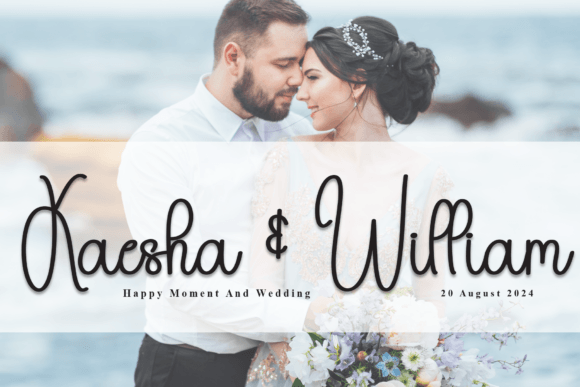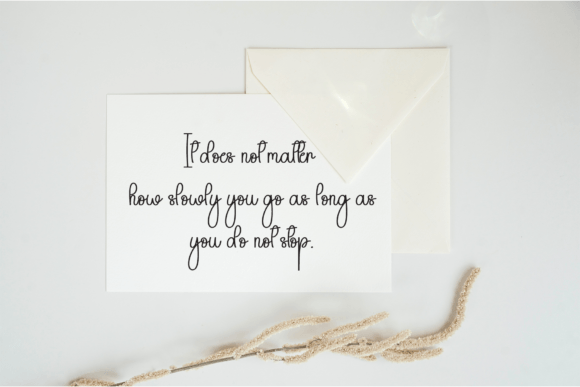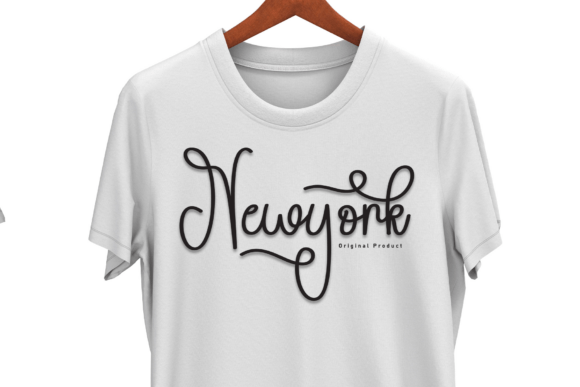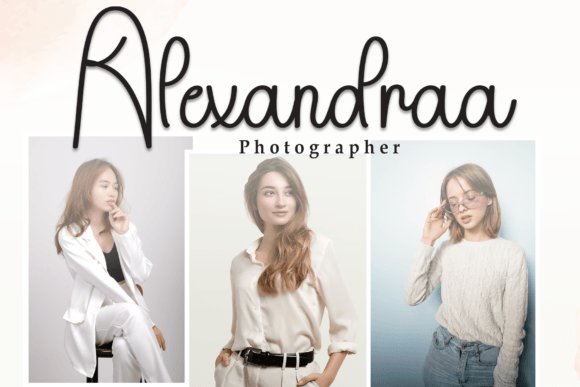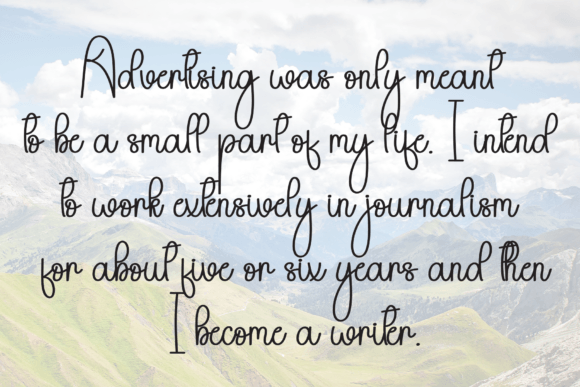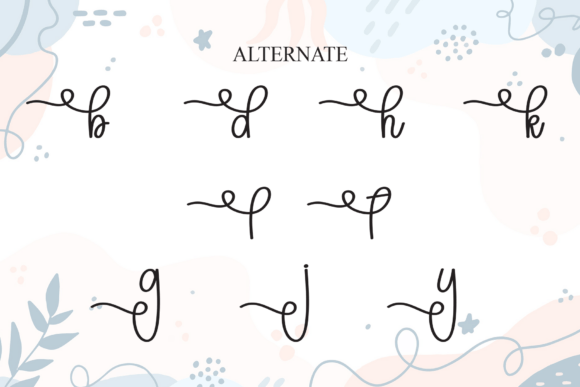
Introducing Background Font: Adding a Dash of Fun to Your Designs
Are you tired of using the same old fonts in your designs? Do you want to add a touch of whimsy and fun to your creations? Look no further than Background Font, a sweet and friendly charm of a handwritten display font. Specifically designed to infuse your designs with a dash of fun, this delightful font is perfect for wedding invitations, greeting cards, or any design project that embraces the joy of playfulness.
The Power of Whimsy in Design
Whimsy is a design element that can make or break a project. It’s the spark that sets your design apart from the rest, making it memorable and engaging. With Background Font, you can add a light-hearted vibe to your designs, painting every word with memorable delight. Whether you’re a designer, crafter, or DIY enthusiast, this font is sure to become your go-to choice for adding a touch of fun to your projects.
What Makes Background Font Special?
So, what makes Background Font so special? Here are just a few features that set it apart:
- Handwritten charm: Background Font is a handwritten display font, giving it a personal and friendly feel that’s perfect for designs that need a touch of warmth.
- Light-hearted vibe: This font has a playful, carefree vibe that’s sure to bring a smile to your face. It’s perfect for designs that need a dash of fun and whimsy.
- Memorable delight: With its unique and charming lettering, Background Font is sure to make your designs memorable and engaging.
- Versatile: This font is perfect for a wide range of design projects, from wedding invitations and greeting cards to posters, flyers, and more.
Using Background Font in Your Designs
Using Background Font in your designs is easy. Here are a few tips to get you started:
- Pair it with other fonts: Background Font pairs well with a variety of other fonts, so don’t be afraid to experiment and find the perfect combination for your design.
- Use it for headings and titles: This font is perfect for headings and titles, where its playful vibe can really shine.
- Add some color: Background Font looks great in a variety of colors, so don’t be afraid to get creative and add some personality to your design.
Background Font is perfect for designers and crafters who want to add a touch of fun and whimsy to their projects. Whether you’re creating wedding invitations, greeting cards, or other paper crafts, this font is sure to become your go-to choice. With its light-hearted vibe and memorable delight, Background Font is the perfect way to add some personality to your designs.
- Handwritten display font
- Light-hearted and playful vibe
- Memorable and engaging
- Perfect for wedding invitations, greeting cards, and other paper crafts